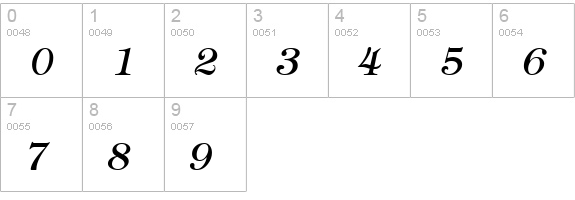
Timbrel Italic Font Details
Timbrel Italic is a distinctive, italic variant in the Timbrel typeface family \xE2\x80\x94 well suited to design and typography projects.
Timbrel Italic font is a stunning typeface that effortlessly combines elegance and modernity. With its sleek and sophisticated design, it is the perfect choice for any project that requires a touch of refinement. The italicized slant adds a subtle but impactful twist, making it ideal for both titles and body text. What sets Timbrel Italic font apart from the rest is its accessibility. This font is not only visually appealing but also free to download. You can easily find it on FontsMarket.com, where it is readily available for anyone seeking to add a touch of class to their designs. Whether you are designing a logo, creating a website, or working on a branding project, Timbrel Italic font will seamlessly elevate your work to new heights. Its clean lines and graceful curves create a sense of sophistication and professionalism, making it an excellent choice for both personal and commercial projects. The versatility of Timbrel Italic font is another reason it stands out from the crowd. It effortlessly adapts to various design styles, from minimalist to ornate, ensuring it can be seamlessly incorporated into any creative endeavor. Its timeless appeal guarantees that your designs will remain relevant and captivating for years to come. Experience the beauty and versatility of Timbrel Italic font today. Download it for free from FontsMarket.com and unlock a world of possibilities for your design projects. Let this font elevate your work and make a lasting impression on your audience.